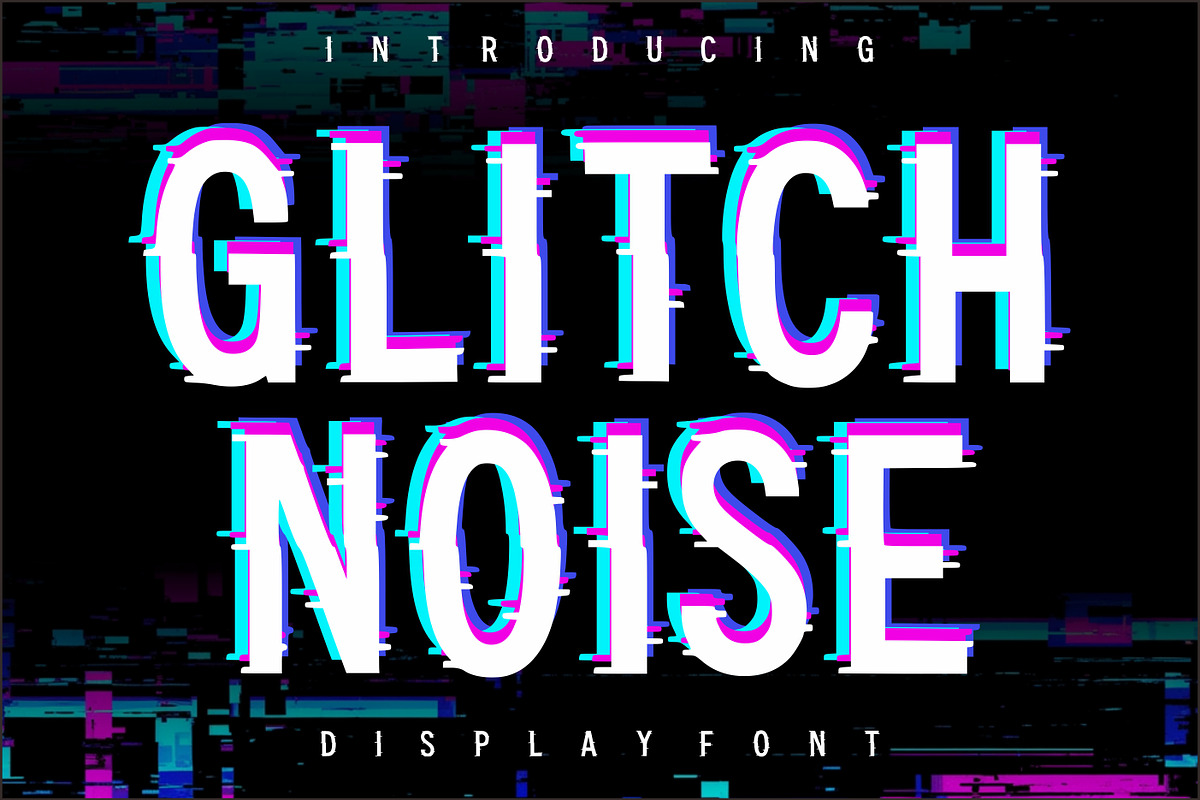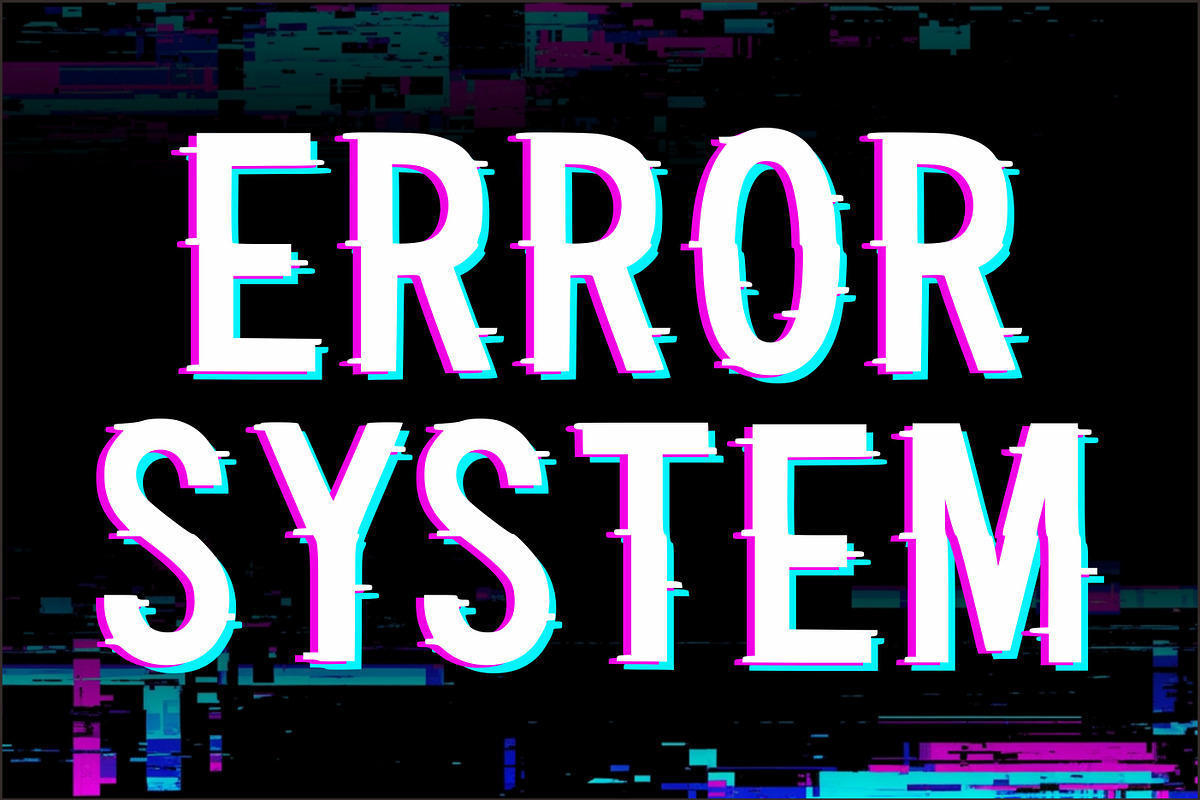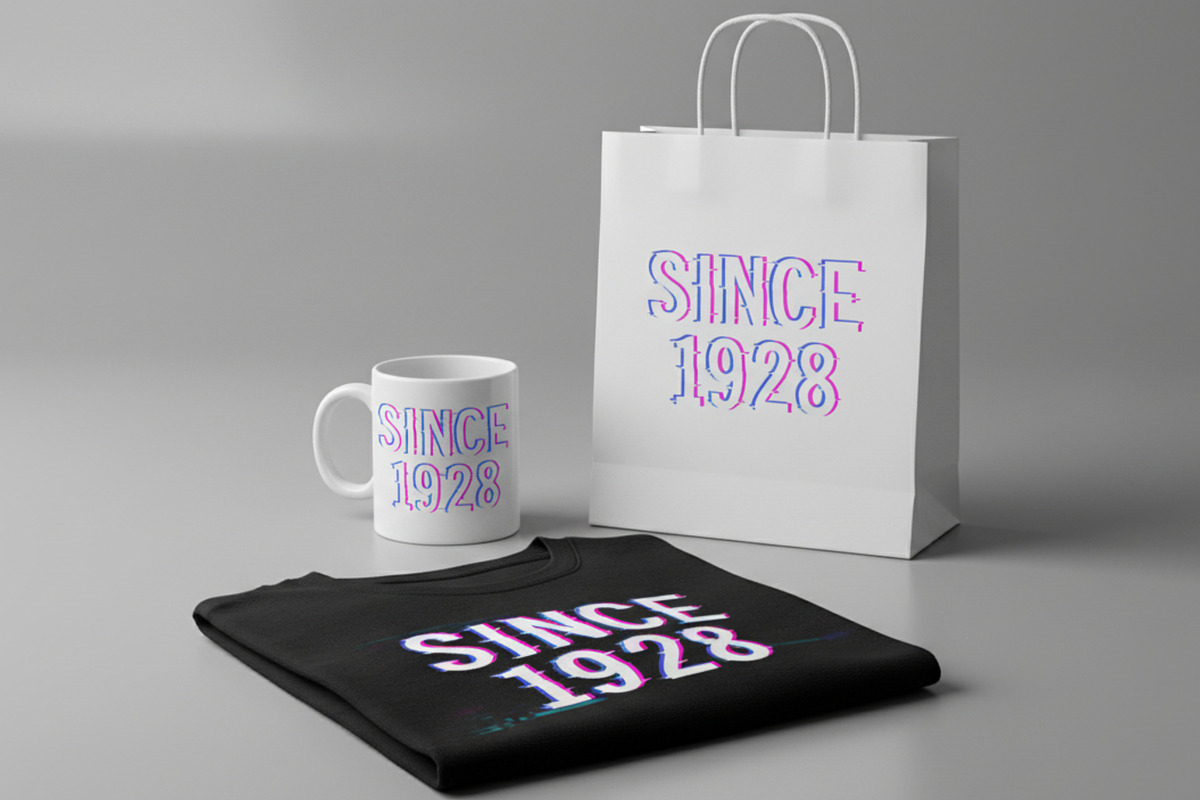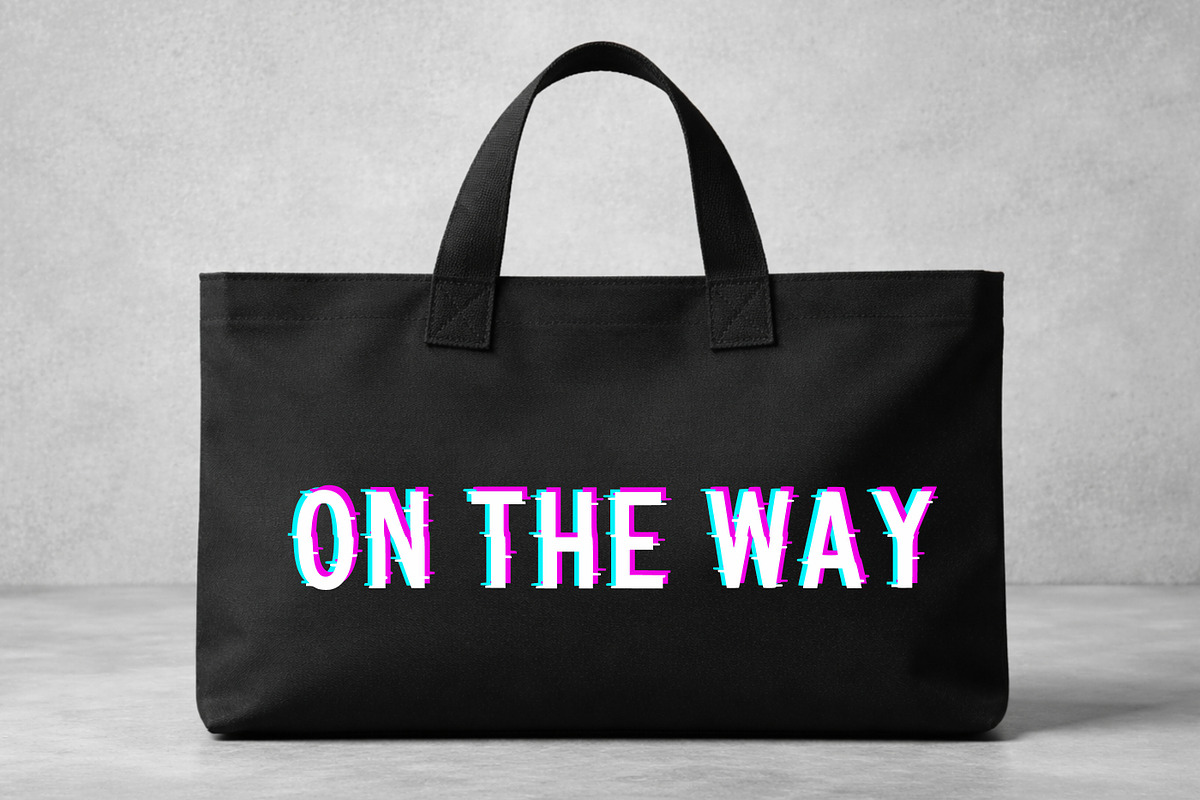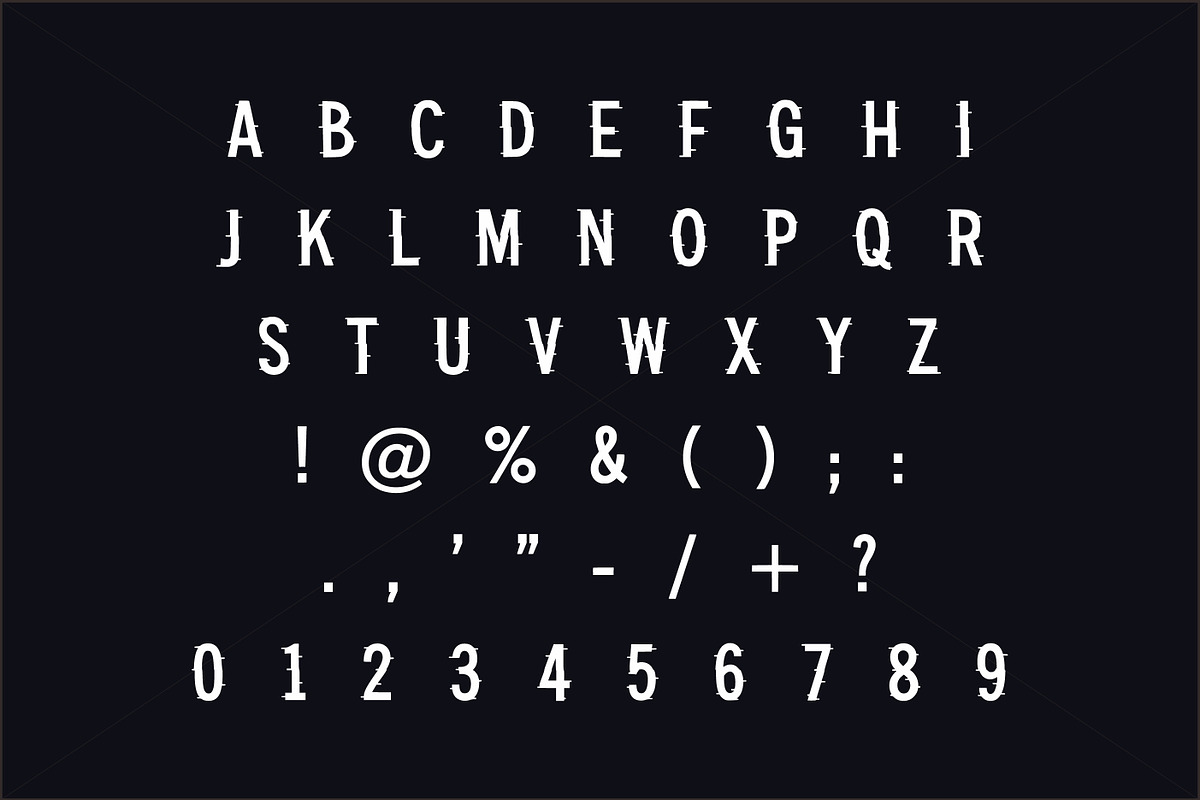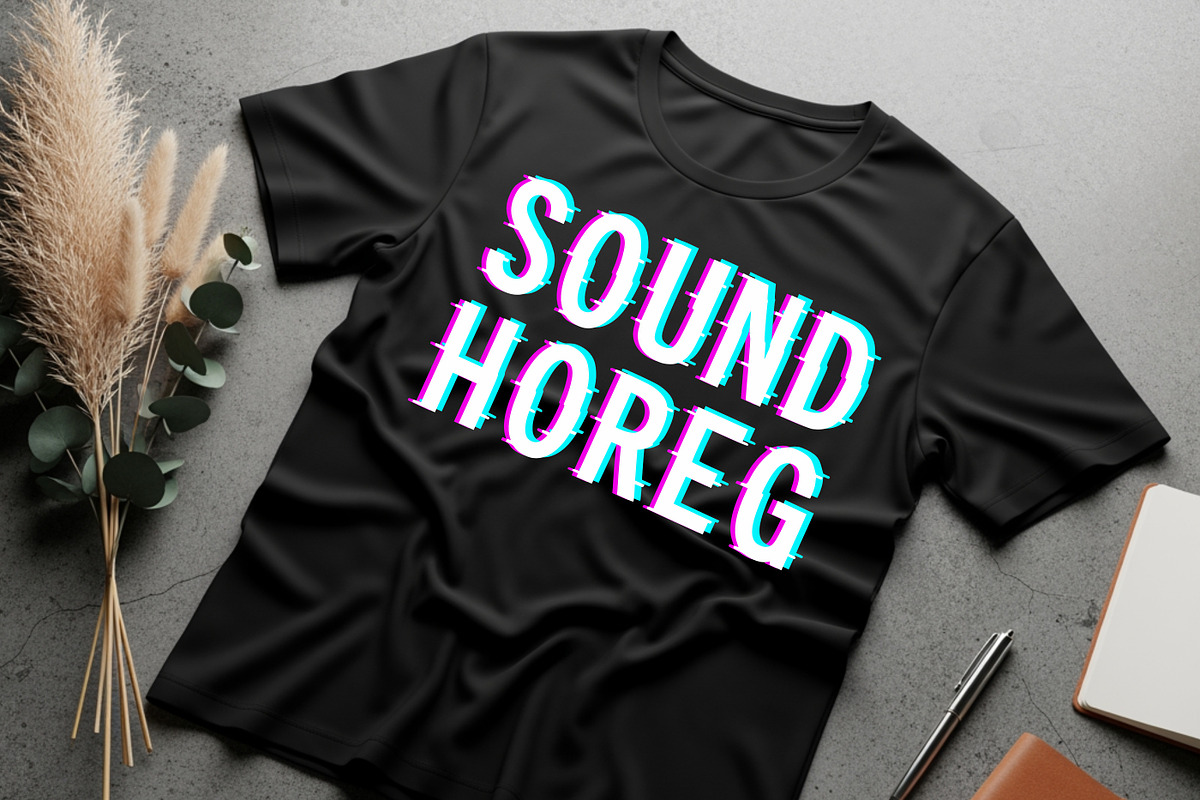
Glitch Noise
Glitch Noise is a futuristic display font designed with a powerful digital glitch effect that instantly creates a modern cyberpunk atmosphere. The bold characters combined with distorted visual details make this font ideal for eye-catching titles, gaming posters, YouTube thumbnails, esports branding, music covers, tech advertisements, and futuristic creative projects.
Inspired by electronic interference, retro digital screens, and sci-fi aesthetics, Glitch Noise delivers a strong visual impact while remaining readable and stylish. Whether you're creating vaporwave artwork, cyber-themed merchandise, or edgy social media graphics, this font adds a high-tech and energetic personality to every design.
Uppercase Letters
Gaming Posters
Esports Branding
Cyberpunk Designs
YouTube Thumbnails
Music Covers
Stream Overlays
Tech Branding
Digital Artwork
Modern Merchandise